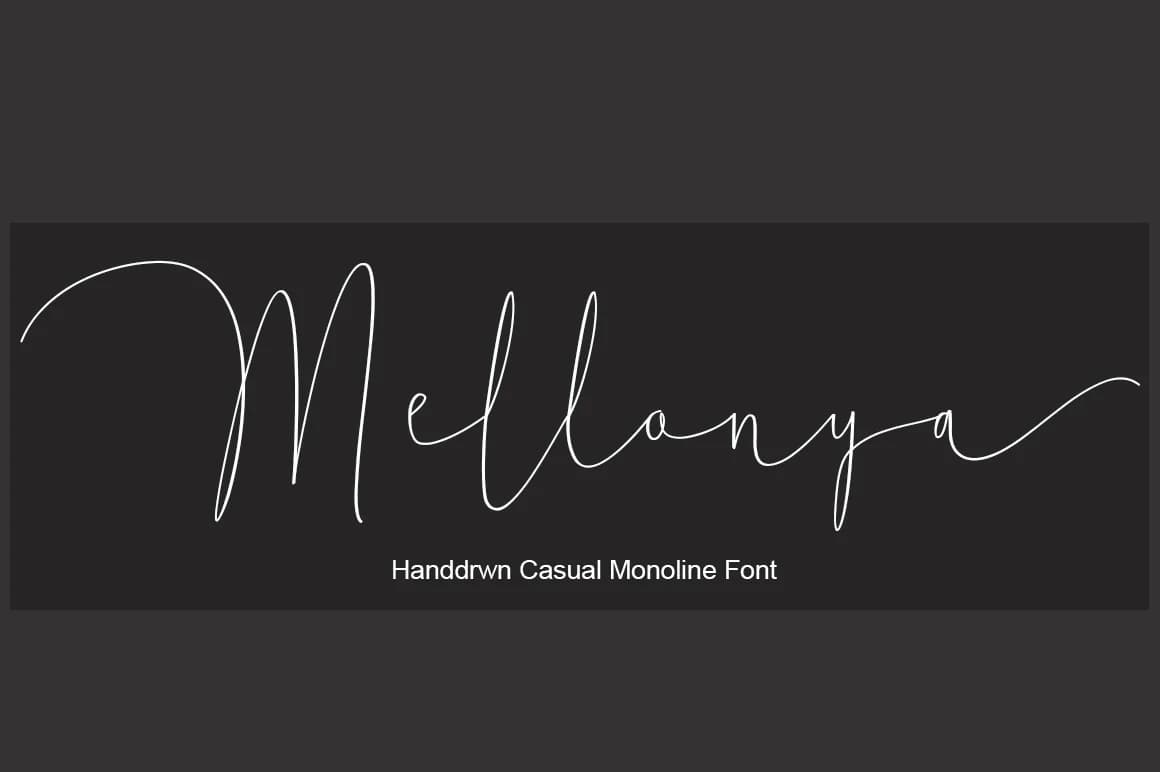
Mellonya Font by BungCu.id is a flowing script that captures the warmth of handwritten correspondence in a contemporary form. Born from digitizing authentic pen strokes, this typeface delivers the personal touch of cursive writing while maintaining clean readability across digital and print applications.
The script excels in creating memorable branding for artisanal businesses, from hand-drawn labels on artisan candles and craft beverages to custom packaging for handmade jewelry lines. Its flowing letterforms are equally suited for wedding invitation suites, where the elegant curves convey sophistication and intimacy. Event planners appreciate how Mellonya works beautifully for place cards, menu designs, and ceremony programs that need that carefully crafted aesthetic without losing legibility. The font also shines in social media graphics and digital storytelling, allowing small businesses to maintain visual consistency across their branded content while preserving that authentic, personal connection that audiences crave.
With its balanced approach to ornamentation and clarity, Mellonya bridges the gap between decorative flair and practical functionality. Whether you're designing DIY craft signage, creating personalized greeting cards, or developing a cohesive visual identity for a boutique brand, this script brings intention and character to every application. Discover how Mellonya can add authentic personality to your creative projects on Creative Fabrica.
Mellonya Font is a script font that shines as a display or heading face. Pair it with a clean sans-serif or serif font for body text β the contrast creates a clear hierarchy while the two styles stay balanced and easy to read.
Mellonya Font
by BungCu.id